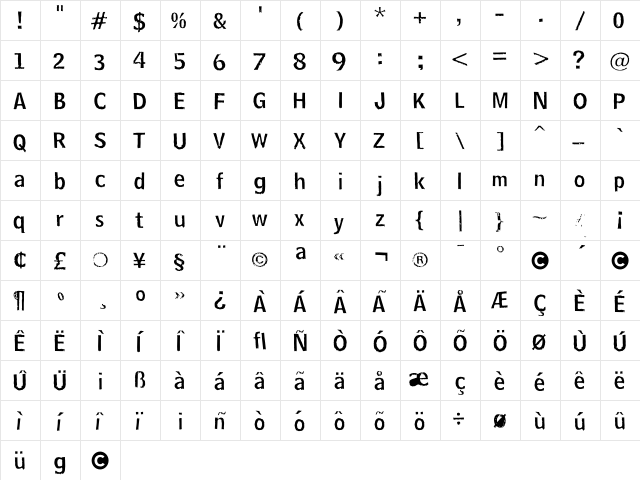
Hoosker Dont
Design Context for Hoosker Typeface
Hoosker is a composed and adaptable typeface that performs quietly and consistently across a wide range of design contexts.